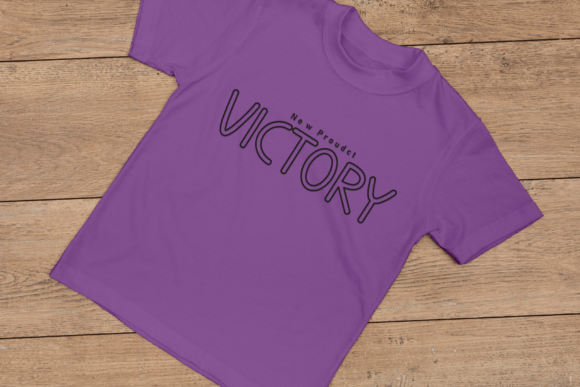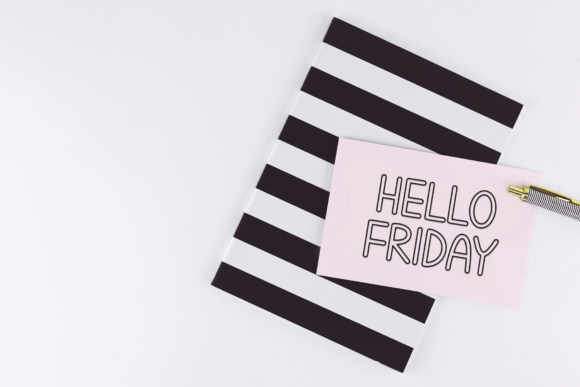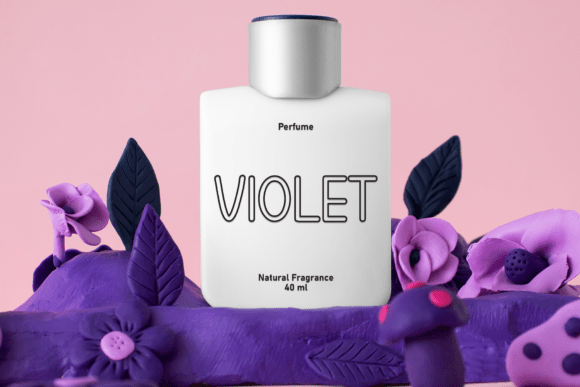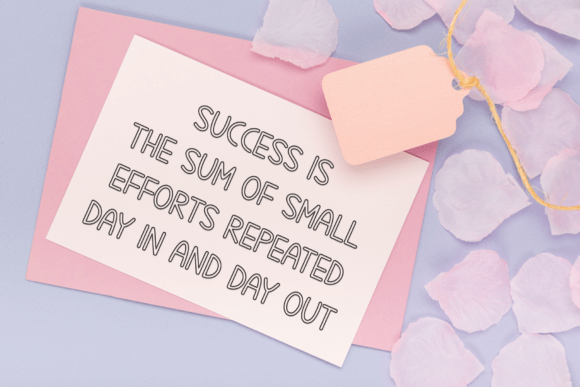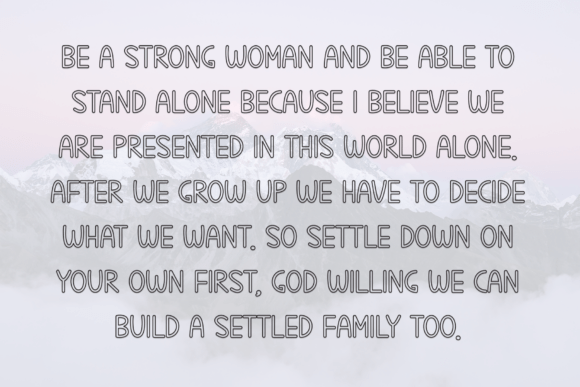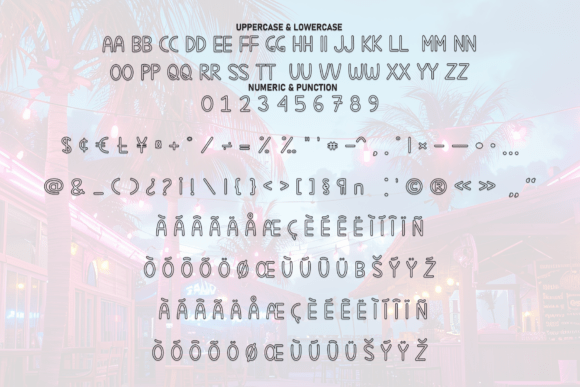
Introduction to Neon Summer Font Font
Fonts play a crucial role in design, and the Neon Summer Font font is a typeface that brings both character and versatility to any project. Whether you’re working on a branding project, a website, or a print design, the Neon Summer Font font offers a unique style that can elevate your work.
Neon Summer is a neat and casual display font that blends clarity with a relaxed, approachable vibe.
Its clean lines and friendly letterforms make it perfect for headlines, posters, packaging, and branding that aims to feel modern yet laid-back With a balanced structure and playful energy, it brings personality to any project without overwhelming the message.
Key Features of Neon Summer Font Font
Why Choose Neon Summer Font Font?
The Neon Summer Font font is more than just a typeface – it’s a design tool that helps you communicate your message with style and clarity. Its unique character set and versatile design make it suitable for a wide range of applications, from elegant invitations to bold headlines.
With its carefully crafted letterforms and balanced proportions, the Neon Summer Font font ensures readability and visual appeal across all mediums.
What makes Neon Summer Font font special?
The Neon Summer Font font stands out with its unique design, exceptional readability, and versatility across various design applications.